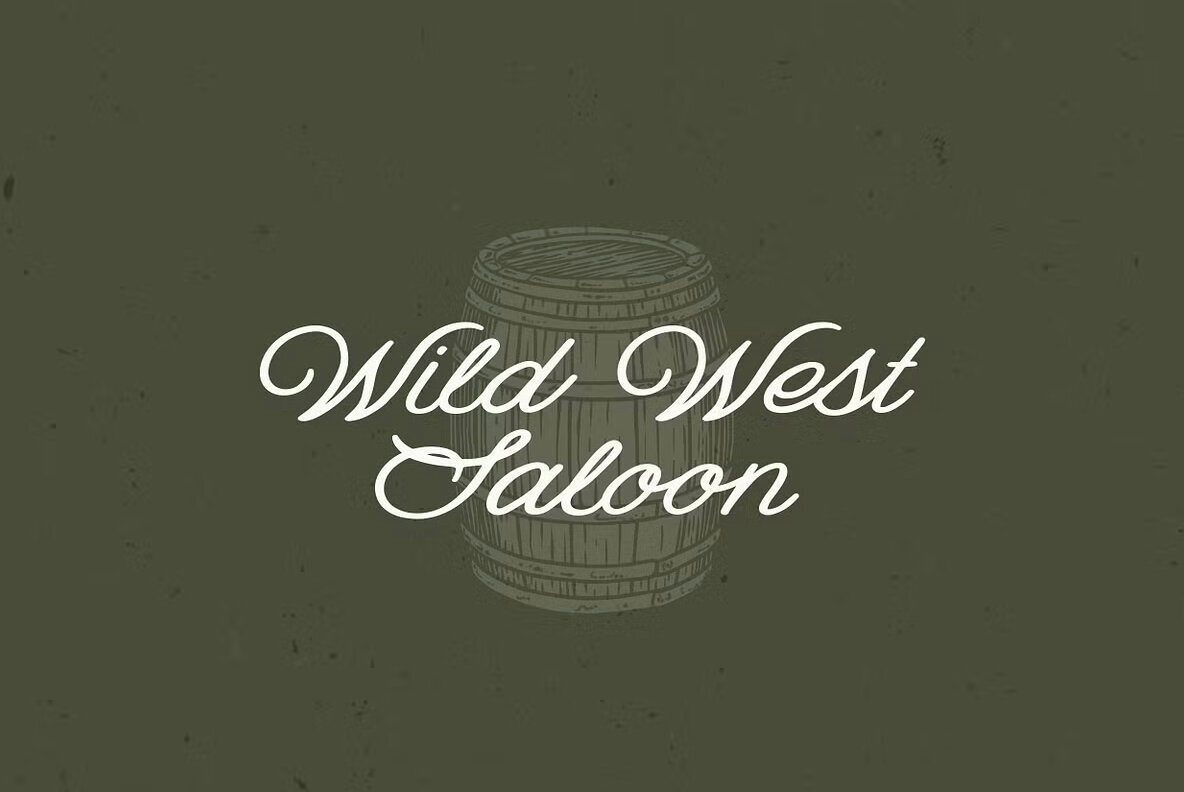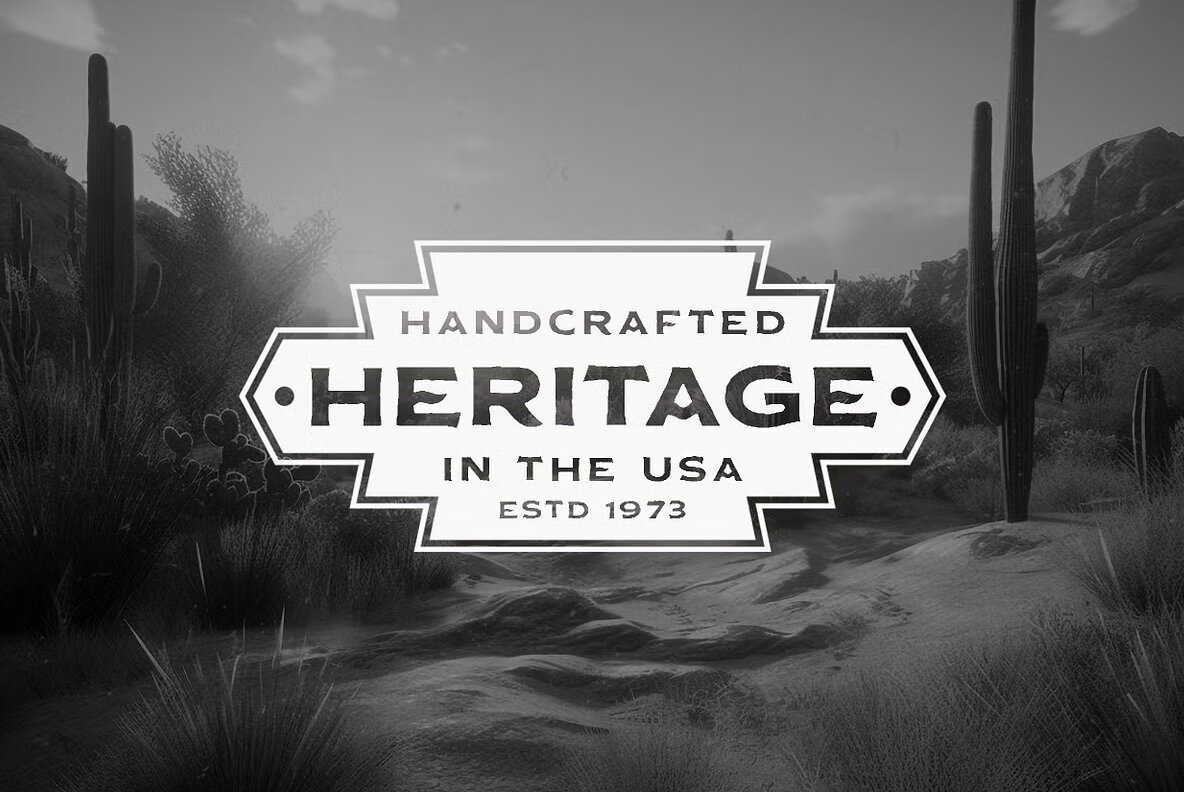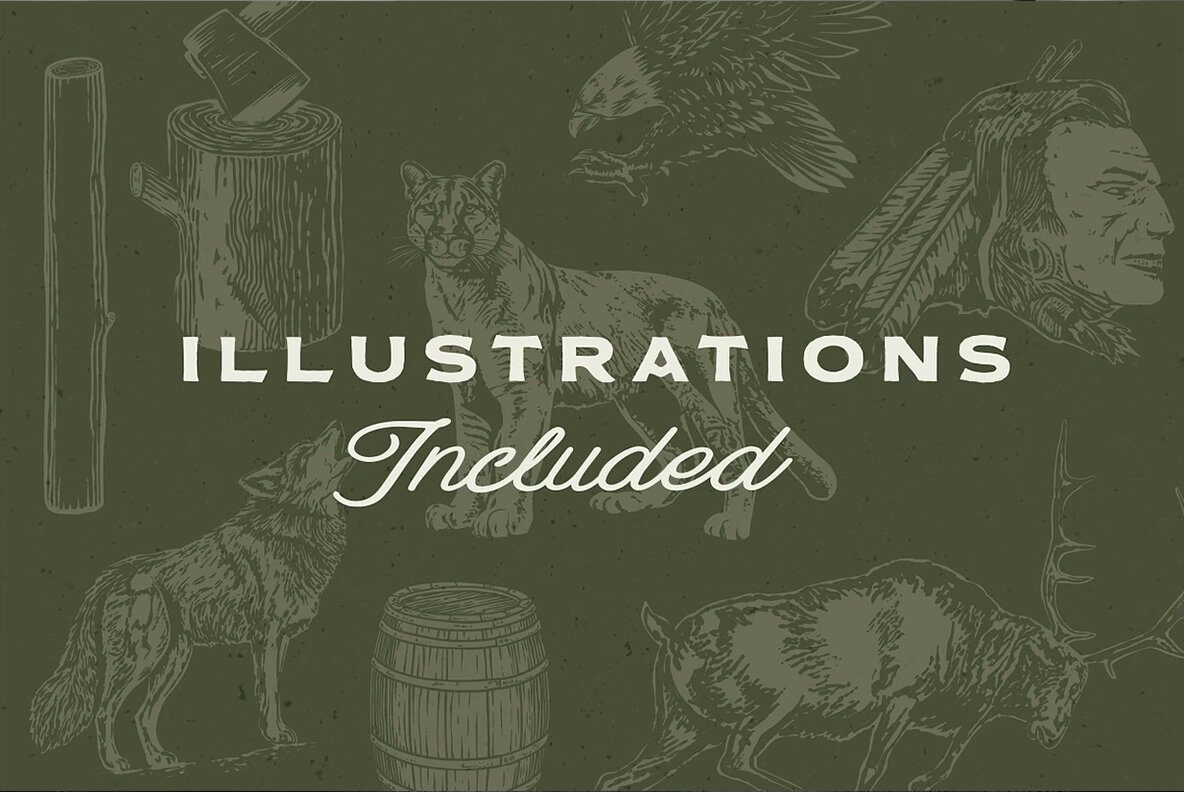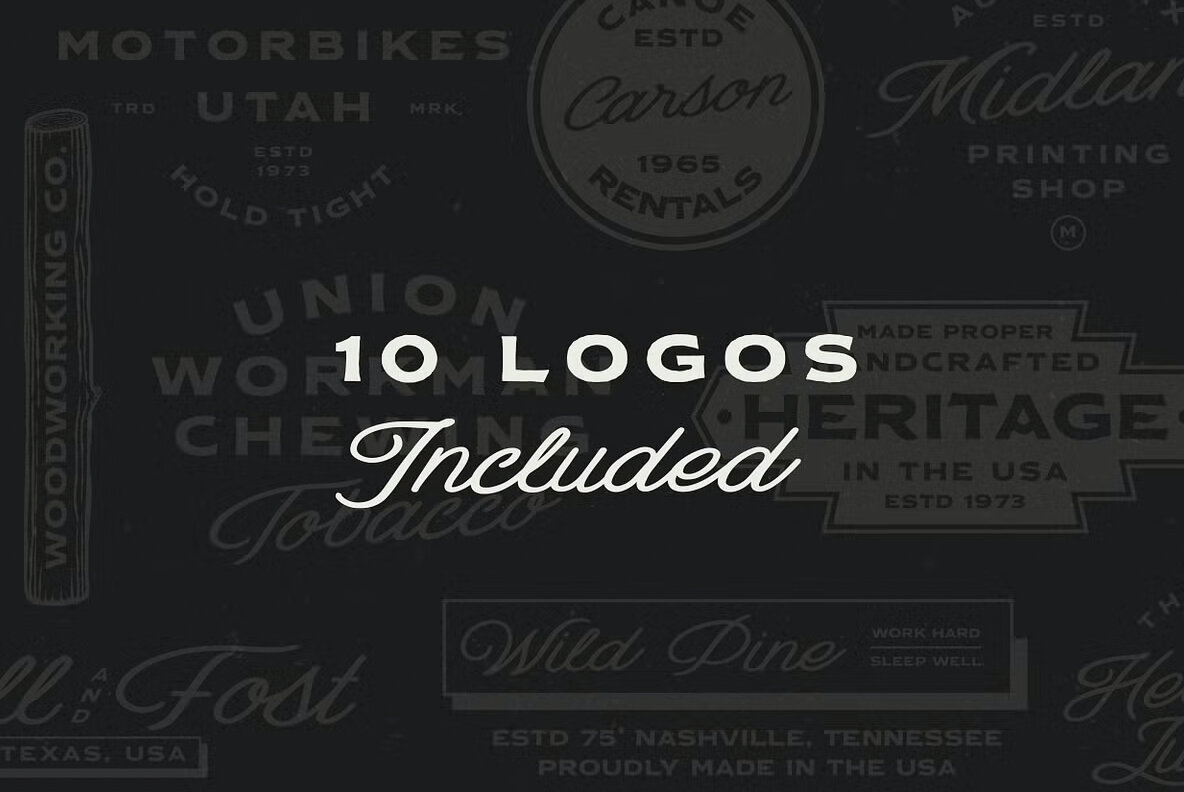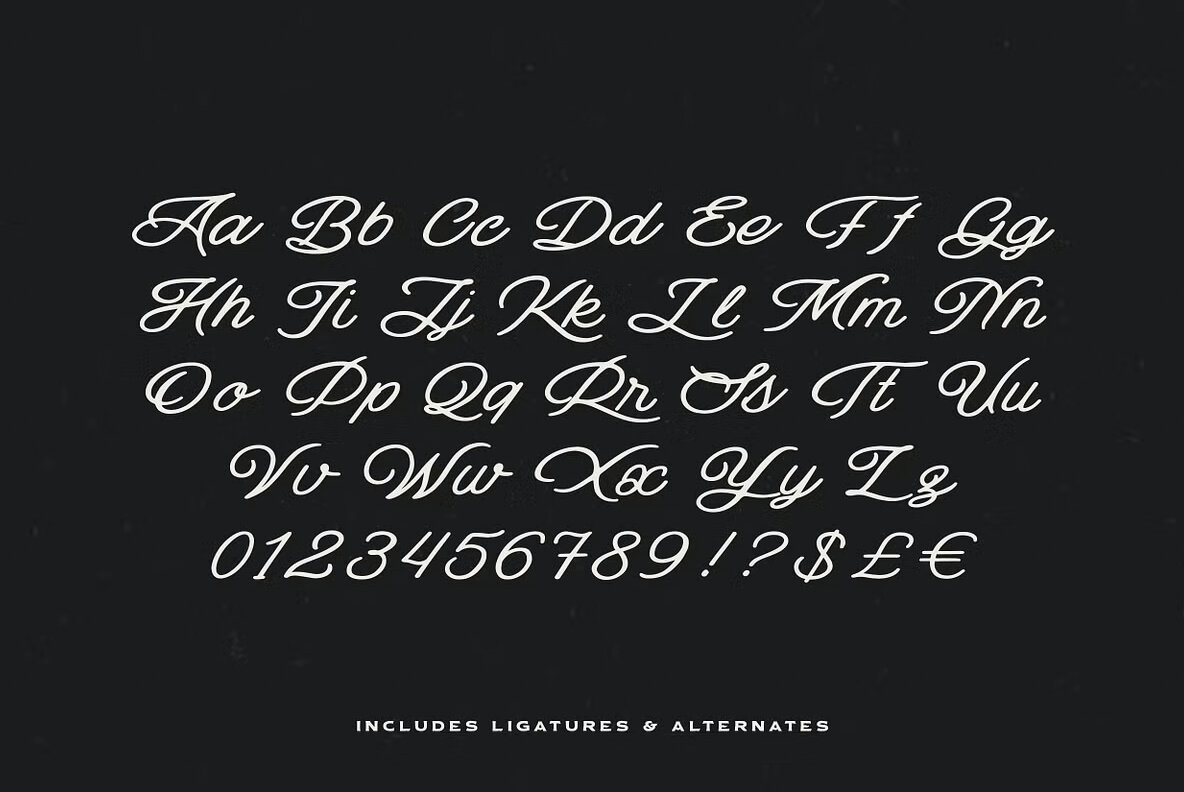
Salt Lake Font
Salt Lake is a blend of rustic charm and enduring style, featuring both a handmade script and a bold serif font. Crafted for logo design, apparel branding, and more, this duo draws inspiration from the American Southwest, infusing elements of its rugged landscapes and rich cultural heritage into its design. Complete with 10 premade logos and hand-drawn illustrations, it offers versatility and authenticity for all your design needs.